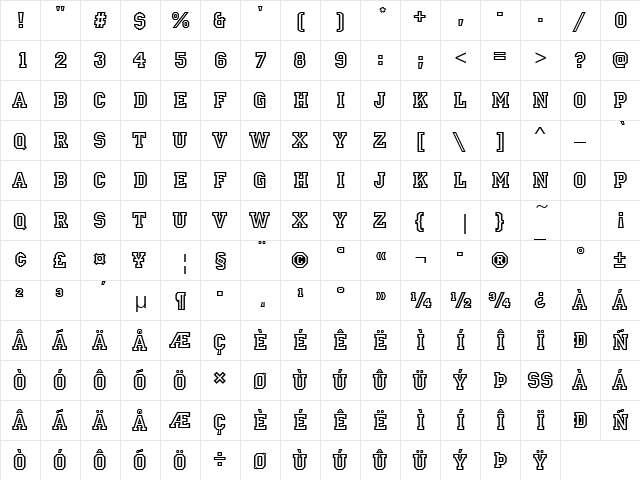
URWPrinzD Regular
Design Context for URWPrinzD Typeface
URWPrinzD offers clean, dependable letterforms without strong stylistic allegiance, making it a practical choice for designers who need flexibility.
Pro Tip: Use URWPrinzD in both headline and body roles to test its range before committing to a single application.